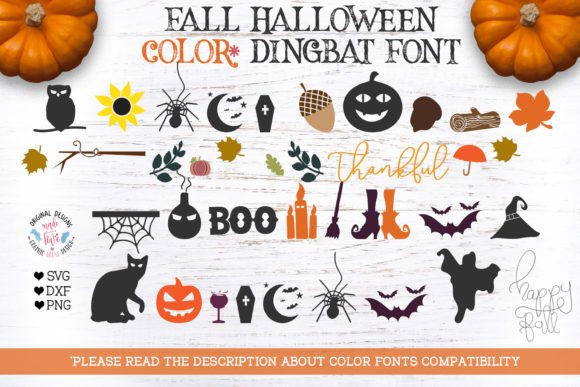
Fall Halloween Font: Elevate Your Designs with a Spooky Twist
As the leaves change colors and the air grows crisper, our minds turn to the spookiest and most wonderful time of the year: Halloween. For designers, crafters, and creatives, this season presents a unique opportunity to infuse their work with a dash of autumnal flair and eerie elegance. Introducing the Fall Halloween Font, an incredibly unique and useful dingbats font that will make your creative ideas stand out.
The Perfect Font for Fall and Halloween Designs
The Fall Halloween Font is a specially crafted dingbats font that embodies the spirit of the season. With its eclectic mix of Halloween-themed icons, autumnal leaves, and spooky symbols, this font is the perfect addition to any design project. Whether you’re creating invitations, party decorations, or social media graphics, the Fall Halloween Font will add a touch of whimsy and sophistication to your work.
What Makes the Fall Halloween Font So Unique?
So, what sets the Fall Halloween Font apart from other fonts? Here are just a few reasons why this font is a game-changer:
- Extensive character set: The Fall Halloween Font boasts an impressive collection of dingbats, including Halloween-themed icons like pumpkins, ghosts, bats, and spiders, as well as autumnal leaves, acorns, and other seasonal symbols.
- Elegant and spooky: The font’s design strikes the perfect balance between elegance and spookiness, making it suitable for a wide range of design projects, from party invitations to social media graphics.
Ideas for Using the Fall Halloween Font
The Fall Halloween Font is incredibly versatile, and can be used in a variety of design projects. Here are a few ideas to get you started:
- Halloween party invitations: Create spooky and elegant invitations that will set the tone for your Halloween party.
- Fall-themed social media graphics: Add a touch of autumnal flair to your social media graphics with the Fall Halloween Font.
- DIY craft projects: Use the Fall Halloween Font to add a personal touch to your DIY craft projects, such as pumpkin decorations or Halloween-themed signs.
- Wedding and event decorations: The Fall Halloween Font can also be used to create unique and eye-catching decorations for weddings and other events.
Tips for Getting the Most Out of the Fall Halloween Font
To get the most out of the Fall Halloween Font, here are a few tips to keep in mind:
- Experiment with different sizes and colors: Don’t be afraid to experiment with different sizes and colors to find the perfect combination for your design.
- Combine with other fonts: The Fall Halloween Font pairs well with a variety of other fonts, so feel free to get creative and combine it with your favorite fonts.
- Use it sparingly: While the Fall Halloween Font is incredibly versatile, it’s best to use it sparingly to avoid overwhelming your design.
| Font Name | Fall Halloween Font |
| Author | GraphicHouseDesign |